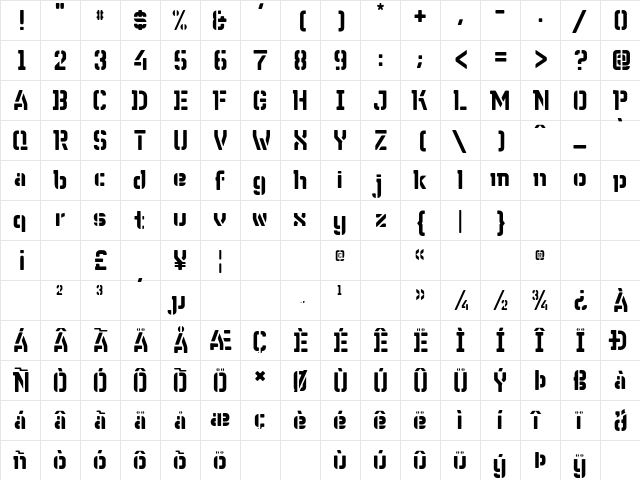
WC Wunderbach Rounded DemiBold Font Preview
Design Context for WC Wunderbach Rounded Typeface
WC Wunderbach Rounded softens its letterforms with rounded terminals, giving it an approachable, friendly quality that works well in consumer-facing and digital contexts. The heavy weight commands attention and anchors typographic hierarchies.
Well-suited to UI design, mobile interfaces, and any brand that wants approachability without sacrificing clarity.
Font Pairing: Pairs well with a rounded or humanist sans for body copy, maintaining the friendly tone without relying on WC Wunderbach Rounded to carry extended reading.
Pro Tip: Use WC Wunderbach Rounded for UI elements, app interfaces, and anywhere a friendly, approachable tone needs to be maintained without sacrificing clarity.